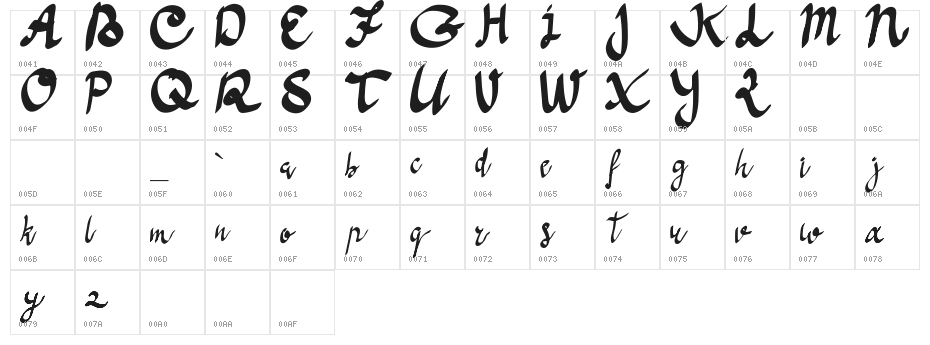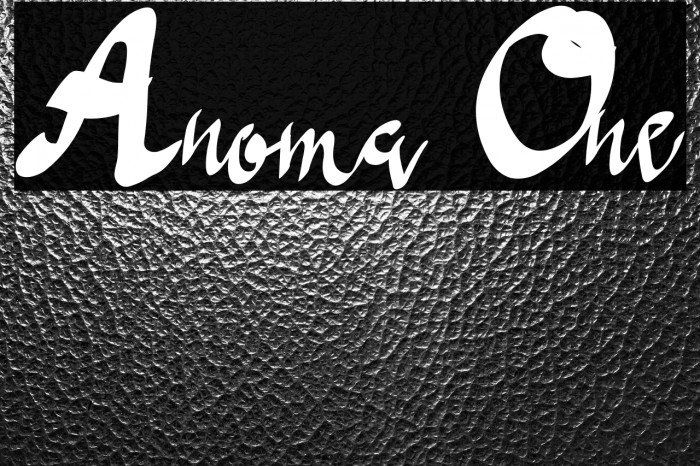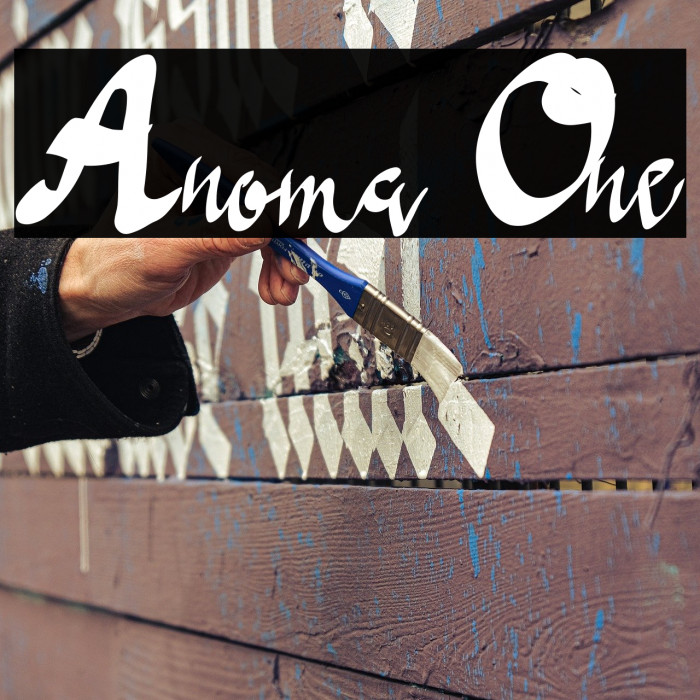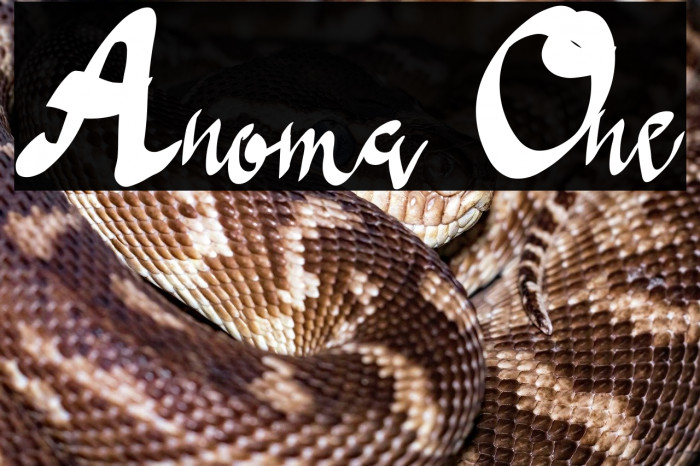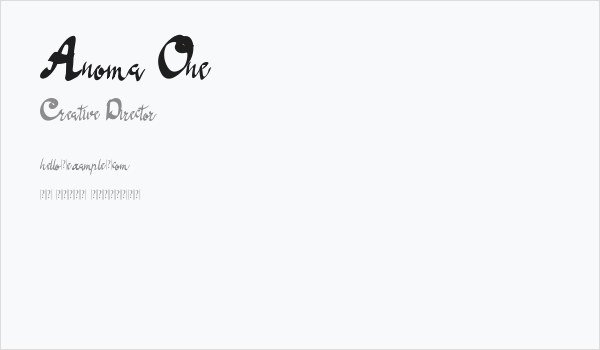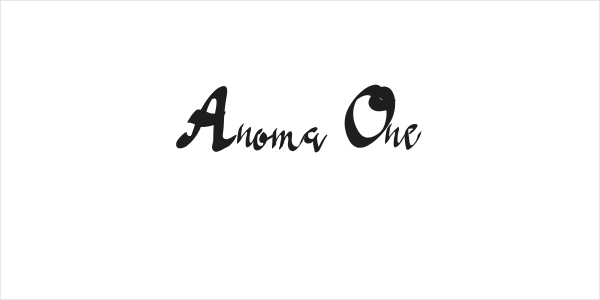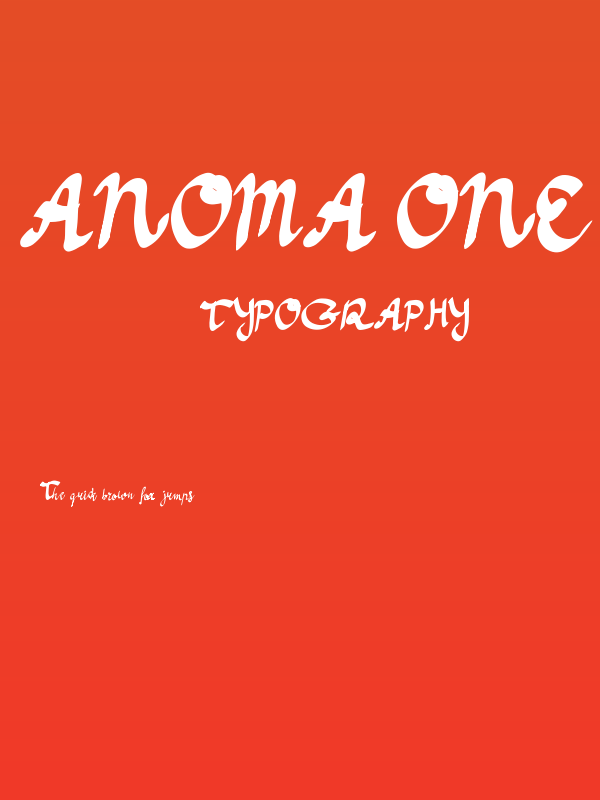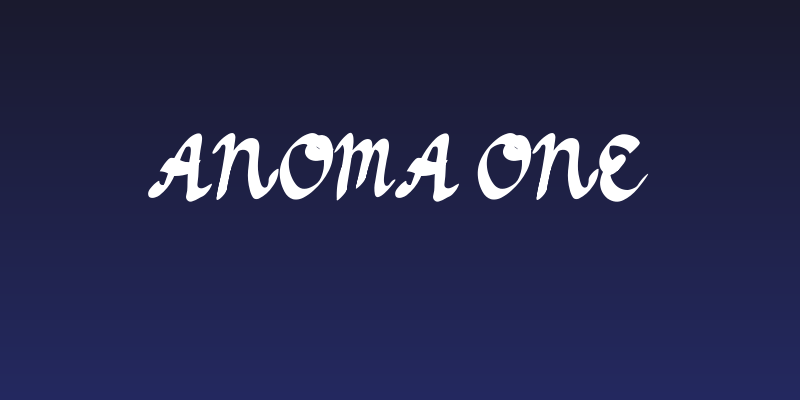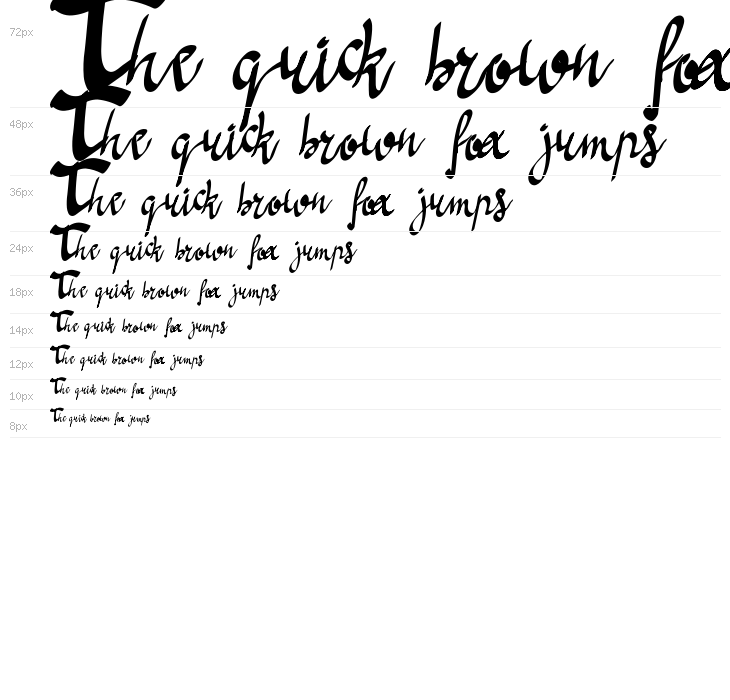
Anoma One Font
Anoma One Description
This font features a bold and expressive script style, characterized by its flowing, cursive letterforms. The strokes are thick and dynamic, with a high contrast between the thick and thin parts of the letters. The uppercase letters are particularly ornate, with exaggerated curves and flourishes that give the font a dramatic and artistic appearance. The lowercase letters maintain a consistent style, with smooth connections and a rhythmic flow. This font exudes a sense of elegance and creativity, making it suitable for projects that require a touch of sophistication and flair.
| Proposed Projects | Ideal for wedding invitations, branding, artistic posters, and elegant packaging designs. |